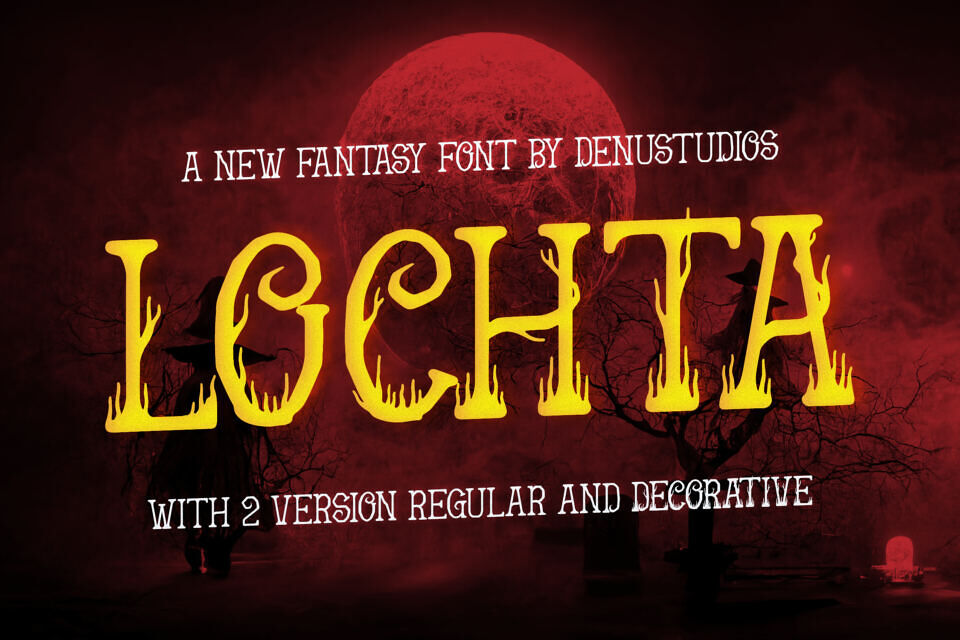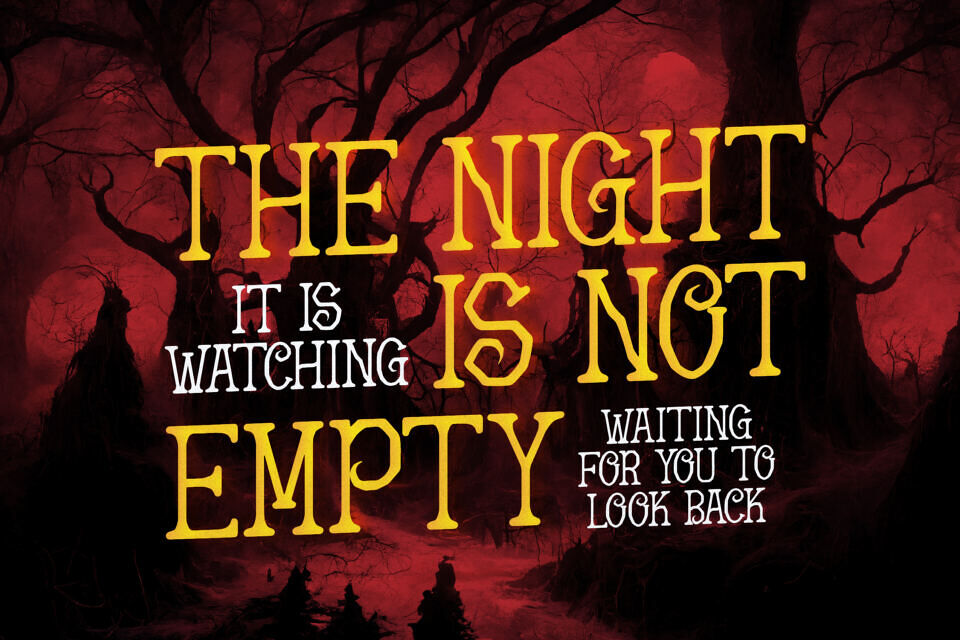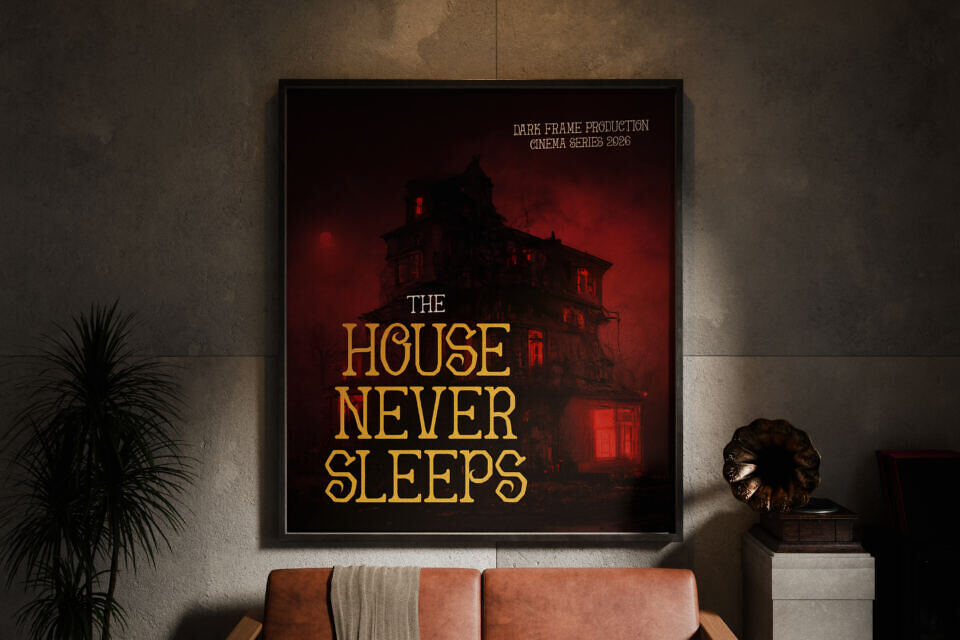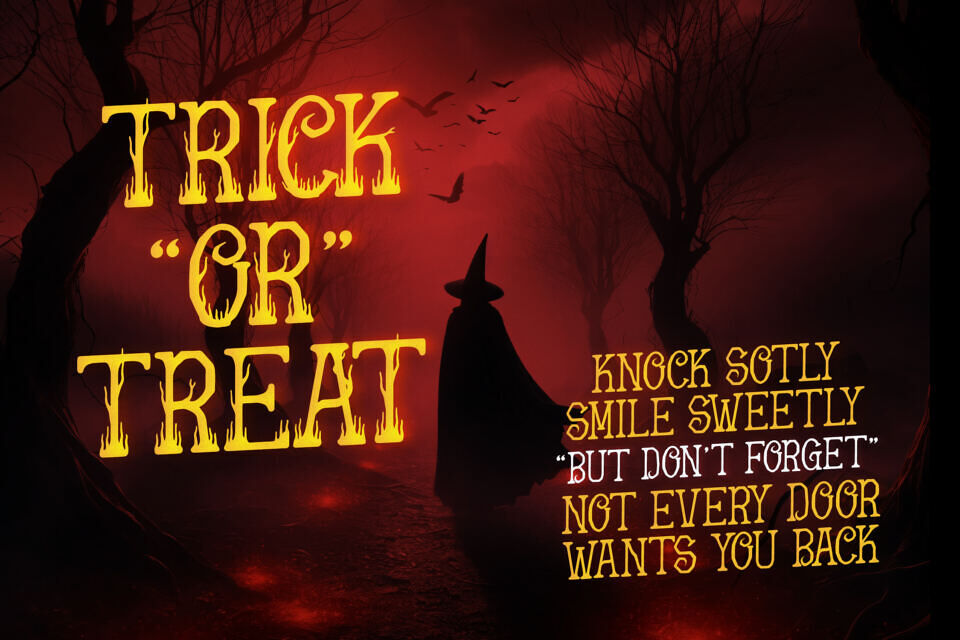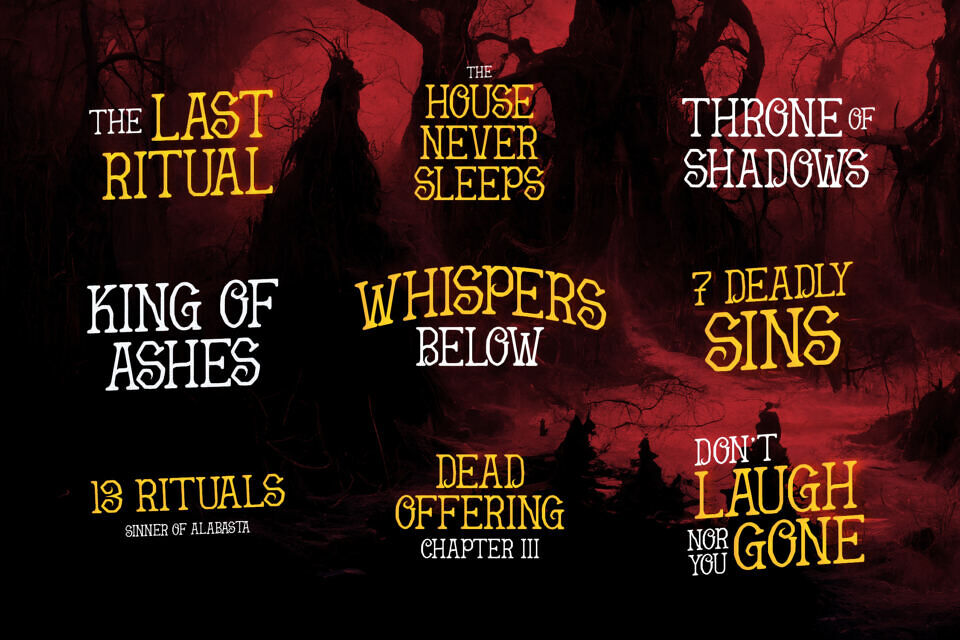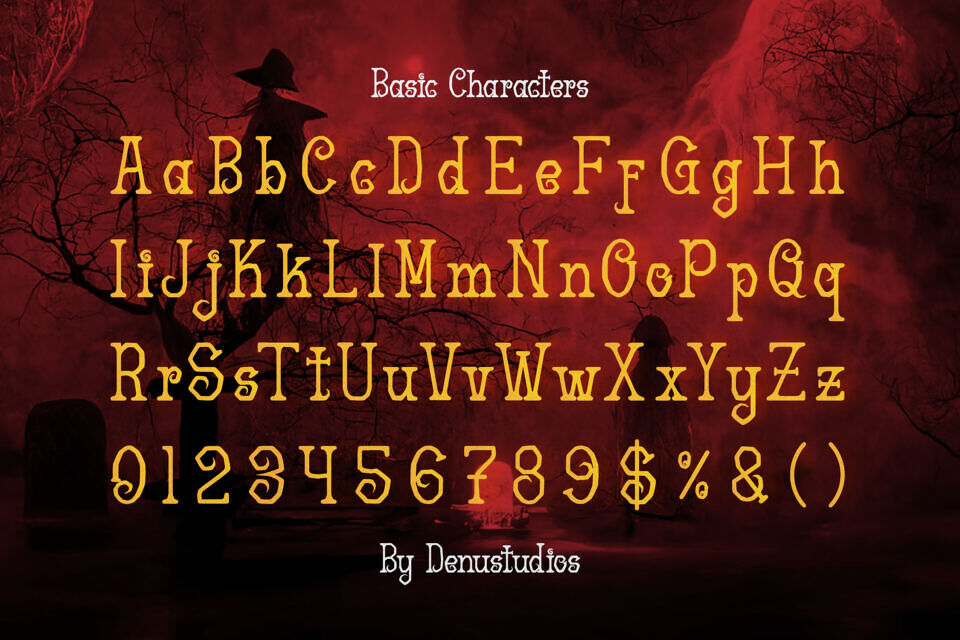
Unleash the magic of the shadows with Lochta, a spellbinding fantasy font designed to bring your most mystical visions to life. Characterized by its haunting, vine-like terminals and jagged, atmospheric silhouettes, Lochta perfectly captures the essence of dark folklore and ancient sorcery.
It is an exceptional choice for fantasy book covers, Halloween branding, RPG game interfaces, and cinematic movie titles. With Lochta, your designs will radiate an eerie, otherworldly charm.